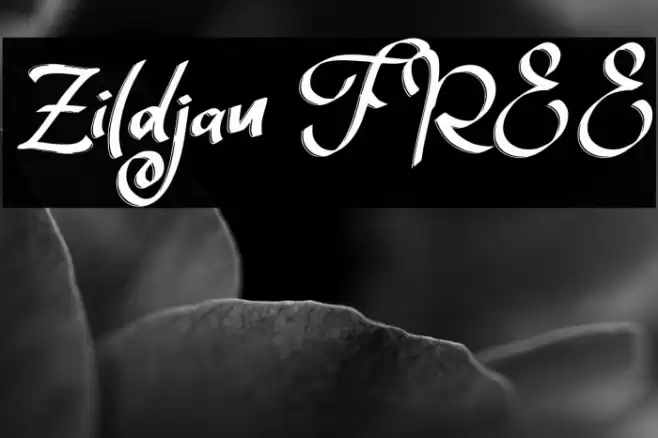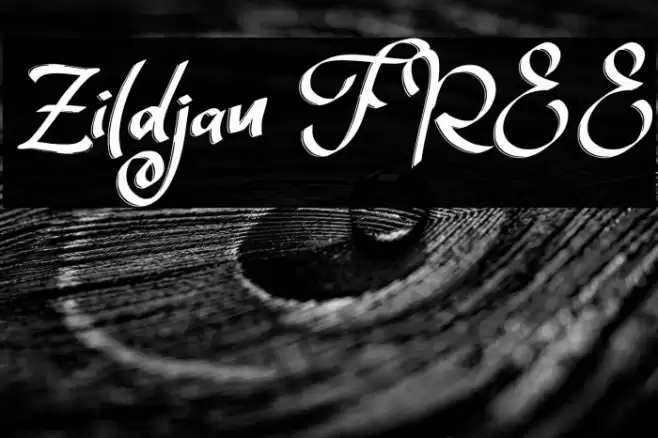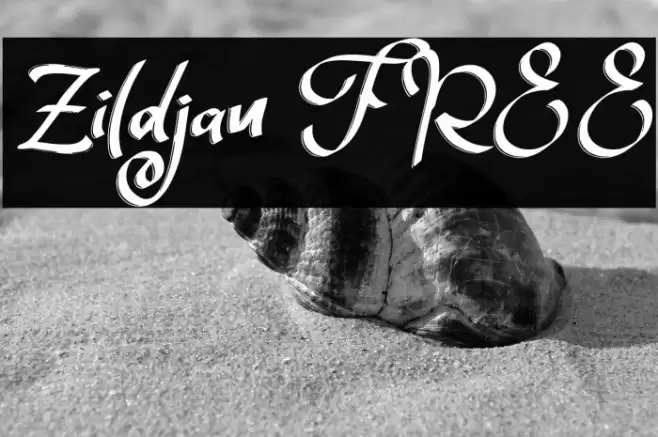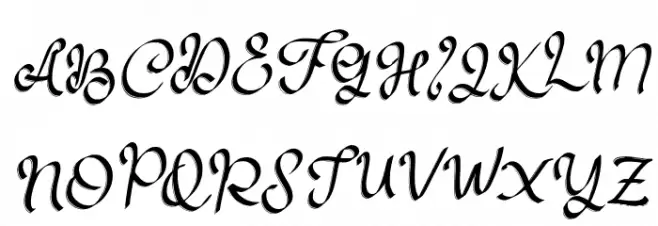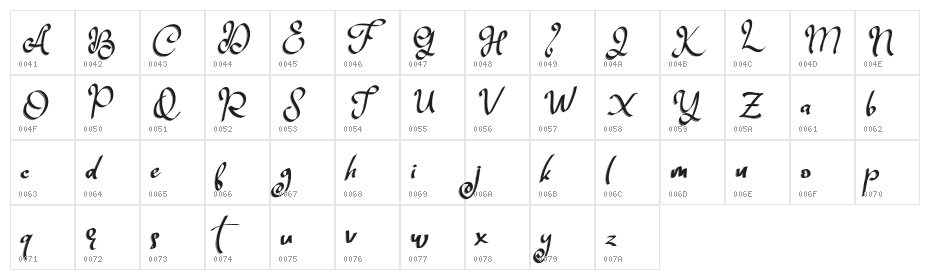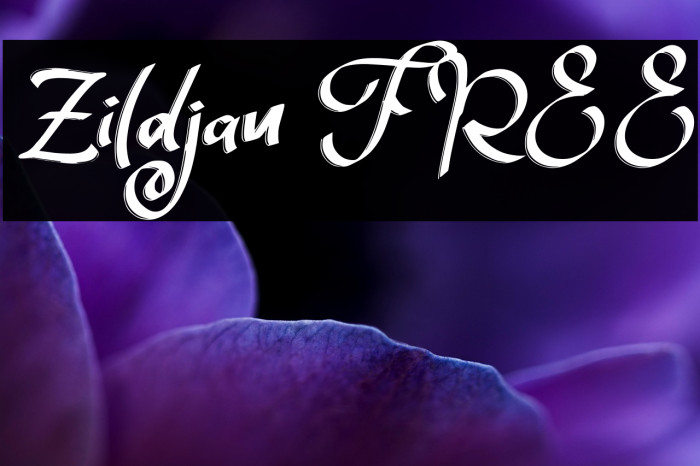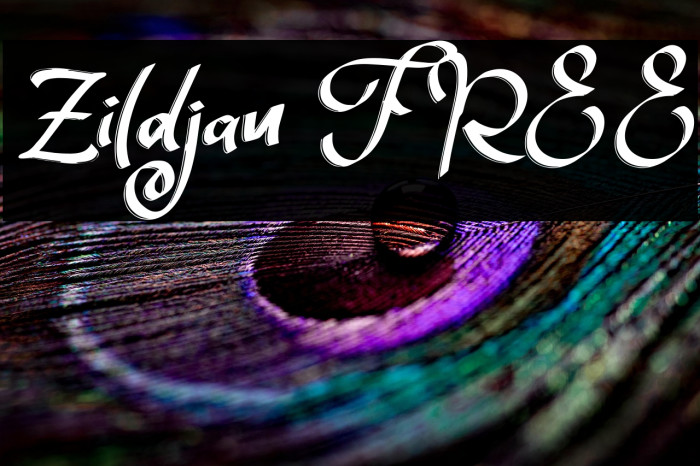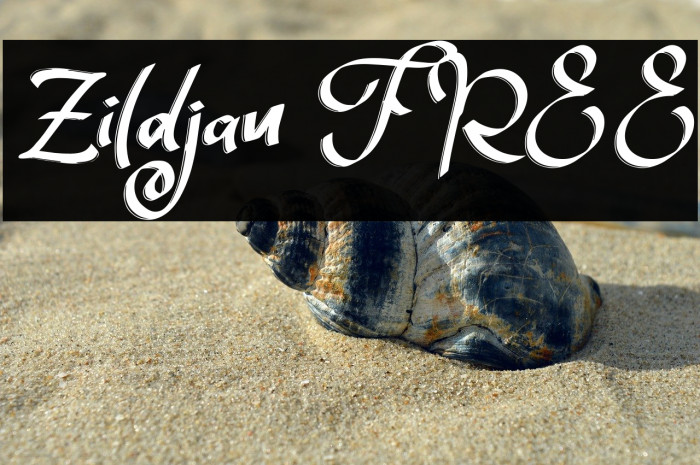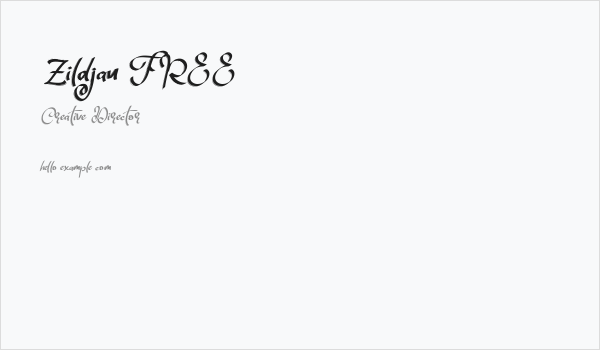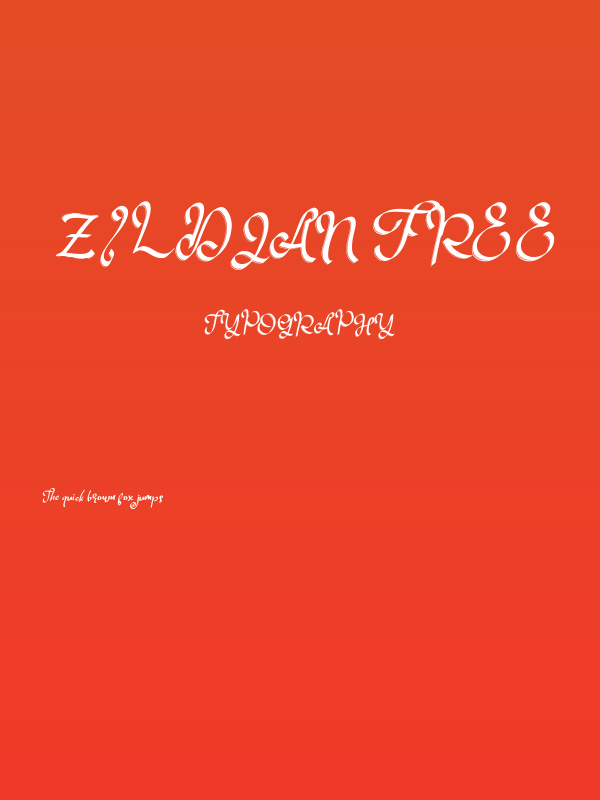
Zildjan FREE Font
Zildjan FREE Description
This font features an elegant and flowing script style, characterized by its ornate and decorative letterforms. The uppercase letters exhibit a graceful, looping design with a consistent stroke width, while the lowercase letters maintain a similar fluidity with intricate details. The overall appearance is both sophisticated and artistic, making it suitable for creative and formal applications. The numbers and special characters are designed to match the ornate style, ensuring a cohesive look across all text elements.
An elegant and decorative script font with flowing, ornate letterforms from Regular fonts.
- Proposed Projects: Ideal for wedding invitations, greeting cards, branding, and decorative headings.
- Use Case: Logos, Headlines, Invitations